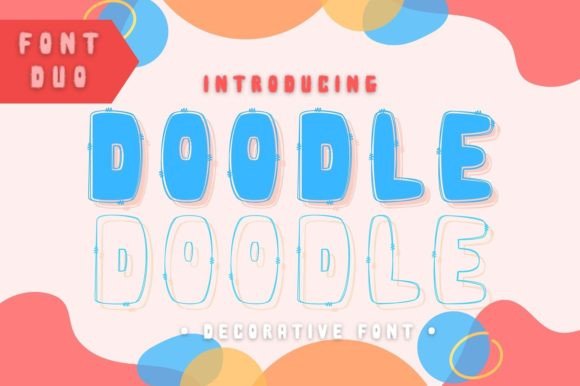
Doodle Font: Adding a Touch of Playfulness to Your Designs
Are you looking for a font that can add a dash of fun and friendliness to your designs? Look no further than the Doodle Font! This delightful display font is perfect for designers and crafters who want to infuse their projects with a sense of playfulness and authenticity. In this article, we’ll explore the features and benefits of the Doodle Font, and how it can elevate your designs to the next level.
What is Doodle Font?
Doodle Font is a unique and charming display font that is designed to bring a smile to your face. Its playful and carefree design makes it an excellent choice for a wide range of projects, from blog posts and logos to branding, ads, invitations, greeting cards, planners, photo albums, decorations, and more. With its fun and friendly vibe, Doodle Font is sure to capture the attention of your audience and leave a lasting impression.
Key Features of Doodle Font
- Playful Design: Doodle Font features a playful and whimsical design that is sure to add a touch of fun to your projects.
- Authentic Feel: The font’s authentic feel makes it perfect for designs that require a personal touch.
- Versatile: Doodle Font can be used for a wide range of projects, from digital designs to print materials.
- Easy to Read: Despite its playful design, Doodle Font is easy to read, making it perfect for body text and headlines.
Benefits of Using Doodle Font
So, why should you choose Doodle Font for your designs? Here are just a few benefits of using this delightful font:
- Adds Personality to Your Designs: Doodle Font adds a touch of personality to your designs, making them stand out from the crowd.
- Perfect for Branding: The font’s playful and authentic design makes it perfect for branding projects that require a personal touch.
- Increases Engagement: Doodle Font’s fun and friendly design is sure to capture the attention of your audience and increase engagement.
Creative Ways to Use Doodle Font
Doodle Font is a versatile font that can be used in a variety of creative ways. Here are a few ideas to get you started:
- Blog Posts: Use Doodle Font to add a touch of personality to your blog posts and make them more engaging.
- Logos and Branding: The font’s playful design makes it perfect for logos and branding projects that require a personal touch.
- Invitations and Greeting Cards: Doodle Font is perfect for creating fun and playful invitations and greeting cards.
- Planners and Organizers: Use the font to add a touch of personality to your planners and organizers.
- Decorations: Doodle Font can be used to create fun and playful decorations for parties, events, and more.
Tips for Using Doodle Font
Here are a few tips for using Doodle Font in your designs:
- Use it Sparingly: Use Doodle Font sparingly to add a touch of personality to your designs.
- Pair it with Other Fonts: Pair Doodle Font with other fonts to create a unique and interesting design.
In conclusion, Doodle Font is a fun and friendly display font that is perfect for designers and crafters who want to add a touch of playfulness and authenticity to their designs. With its playful design, authentic feel, and versatility, Doodle Font is sure to become a favorite in your font collection. So why not give it a try and see the results for yourself?